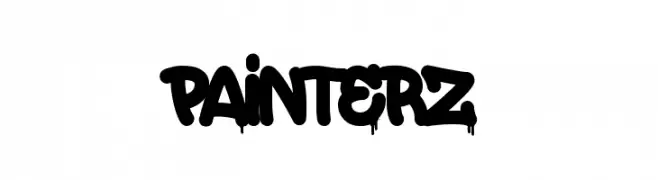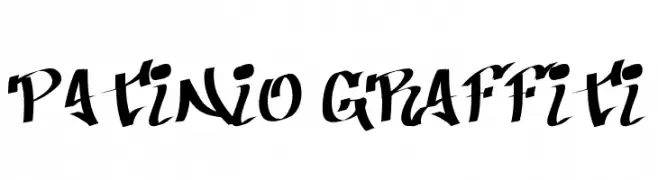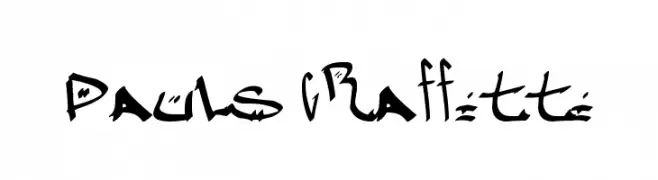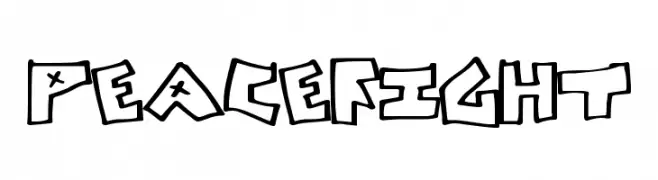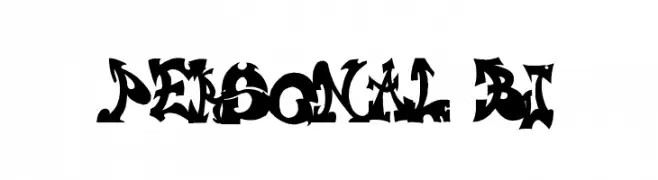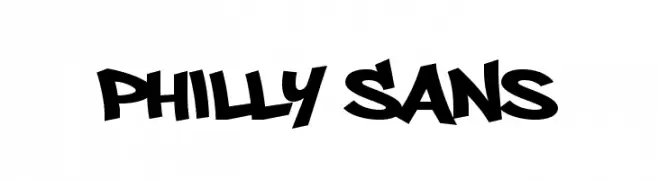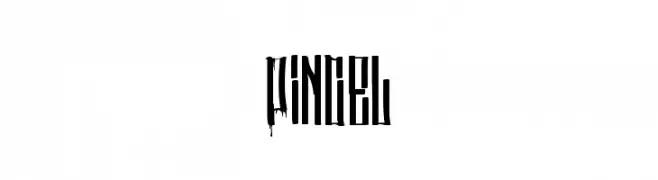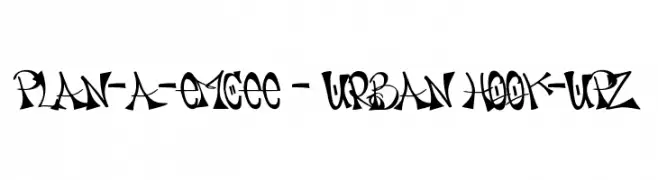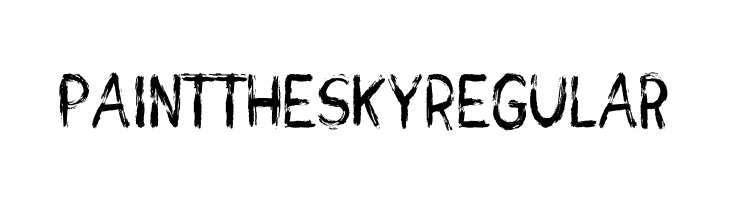
A bold, expressive brushstroke font with dynamic and textured characters.
A bold, graffiti-inspired font with a playful, urban aesthetic.
A bold, graffiti-inspired font with sharp, angular lines and dynamic flourishes.
A bold, graffiti-inspired font with dynamic curves and sharp angles.
A bold, graffiti-inspired font with angular, hand-drawn characters.
A bold, playful font with a graffiti-inspired style.
A bold, playful font with dynamic curves and strong visual impact.
A dramatic, gothic-style font with elongated, sharp edges and a dripping effect.
A bold, graffiti-inspired font with an urban and edgy style.